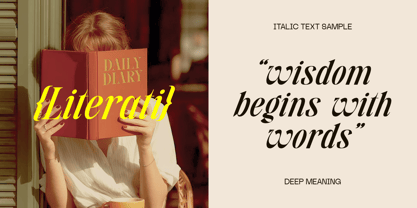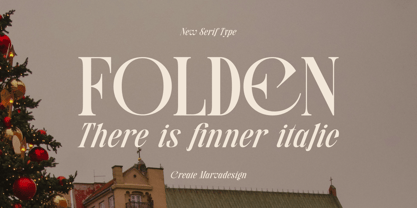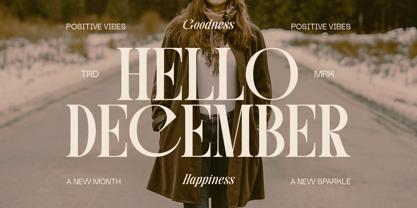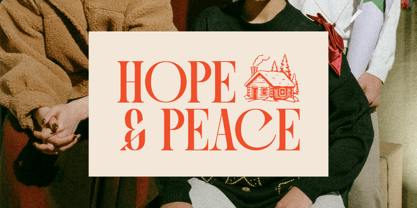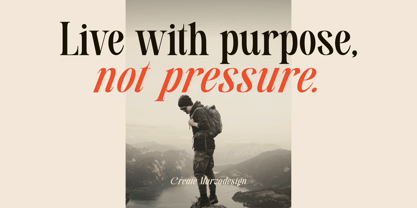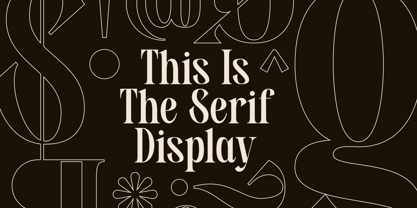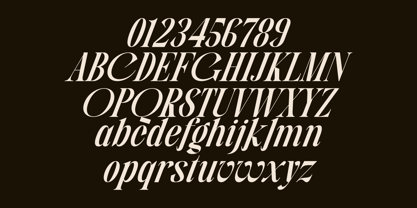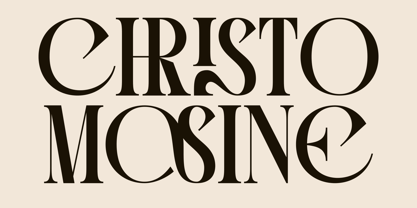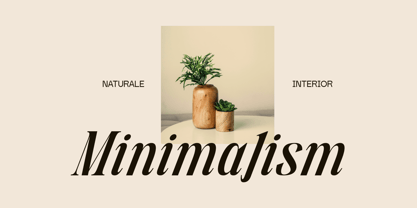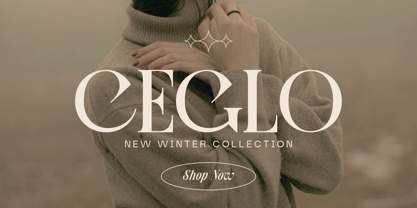
Folden
von Marvadesign
Die Schriftfamilie Folden wurde von Febrie Setiawan entworfen und von Marvadesign veröffentlicht. Folden enthält 2 Stile und Familienpaketoptionen. Mehr über diese Familie
Folden is a modern serif typeface that blends elegance with a distinctive artistic flair. Designed with high contrast strokes and unique sculpted letterforms, it brings a luxurious and expressive character to any visual layout. Folden comes in two refined styles Regular and Italic each offering its own personality. The Regular style appears bold, confident, and sophisticated, making it ideal for headlines, branding, and editorial designs. Meanwhile, the Italic style introduces a smoother, more graceful rhythm with a subtle sense of motion, perfect for adding refinement, emphasis, and a touch of romance to your compositions. Together, both styles create a versatile typographic system that elevates modern design with timeless charm.
Designer: Febrie Setiawan
Foundry: Marvadesign